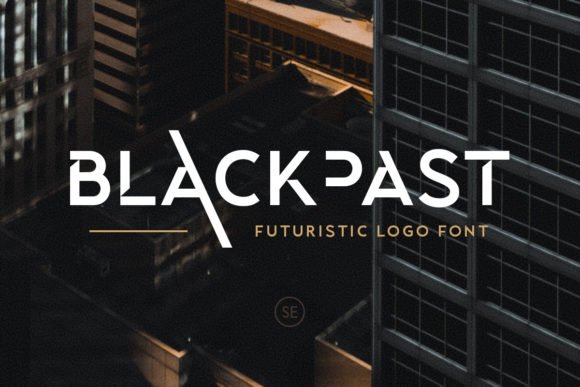
Unlock the Power of Blackpast Font
Have you ever been brainstorming ideas for a new project and suddenly, a spark of inspiration strikes? You see a beautiful combination of colors, shapes, and textures, and you can’t wait to bring it to life. That’s exactly what happens when you work with the right tools – and that’s where the Blackpast Font comes in.
This bold and modern display font is more than just a typography choice; it’s a statement piece that celebrates abstract shapes in all their eclectic beauty. With Blackpast Font, you’ll add a touch of creativity and uniqueness to your designs, making them stand out in a crowded market.
Blackpast Font Key Features
- Font Family: Blackpast Font is a sans-serif typeface designed specifically for body text, ideal for use in academic, historical, and literary publications.
- Font Size: Designed to be highly legible at small font sizes, making it suitable for use in print and digital publications where text density is a concern.
- Unique Characteristics: Blackpast Font features a distinctive x-height, carefully designed to promote readability and minimize fatigue when reading large blocks of text.
Blackpast Font Review
Overall, I was really excited to dive into the Blackpast Font, but my experience was a mixed bag. ✨ One thing I loved was the unique aesthetic – the font has a beautiful, elegant feel to it that would be perfect for creative projects or branding. The ligatures and swashes are also a nice touch, adding a touch of personality to the font.
However, I did encounter a few issues that prevented me from fully falling in love with the font. ⚠️ For one, the font can be a bit finicky on certain systems, causing it to render unevenly or with inconsistent spacing. This is definitely something to be aware of if you’re planning on using the font for a large-scale project.
Another limitation I noticed was the relatively limited character set. While it’s not a huge issue, it’s worth noting that the font only includes Latin characters, which might be a problem for projects that require other languages.
- Limited character set (only Latin characters)
- Can be finicky on certain systems
Overall, I’d say the Blackpast Font is a solid choice for the right project. If you’re looking for a unique, elegant font with a lot of personality, it’s definitely worth considering. Just be aware of the potential issues and limitations.
The Blackpast font is ideal for use in historical, educational, and cultural contexts, where a vintage or distressed look is desired. It can be used for headings, titles, and body text to add a touch of nostalgia and sophistication.
To get the most out of the Blackpast font, experiment with different font sizes, styles, and combinations with other fonts. Use it sparingly to create a bold statement or use it throughout your design for a cohesive look.